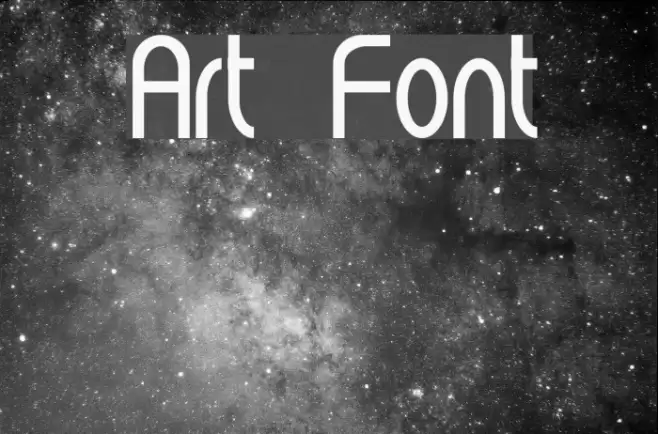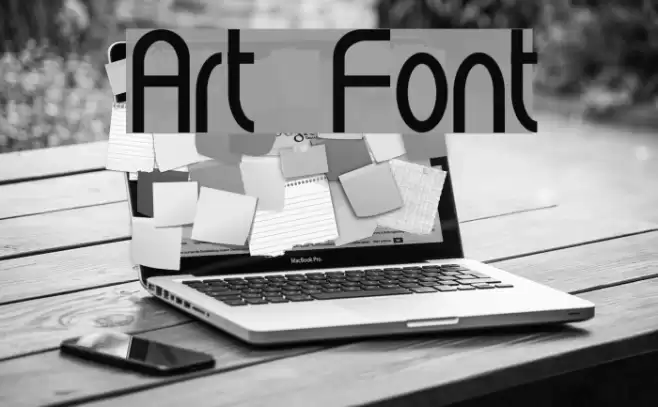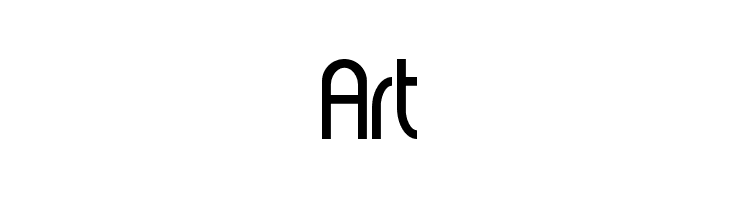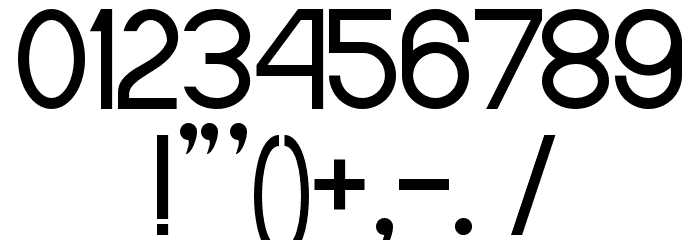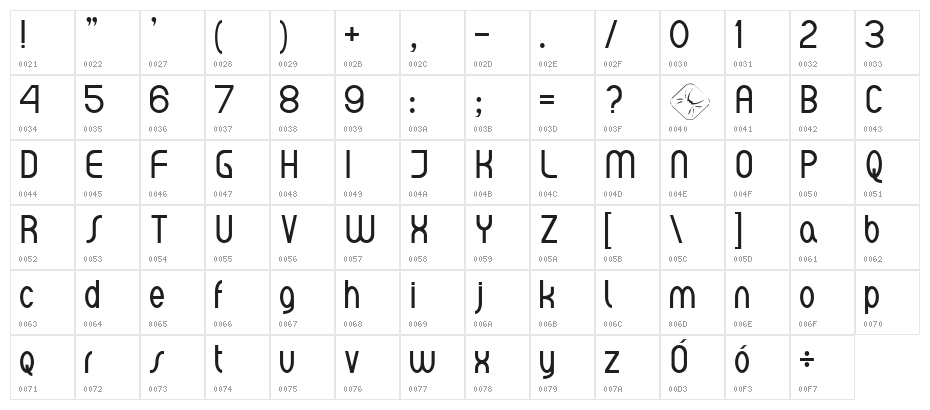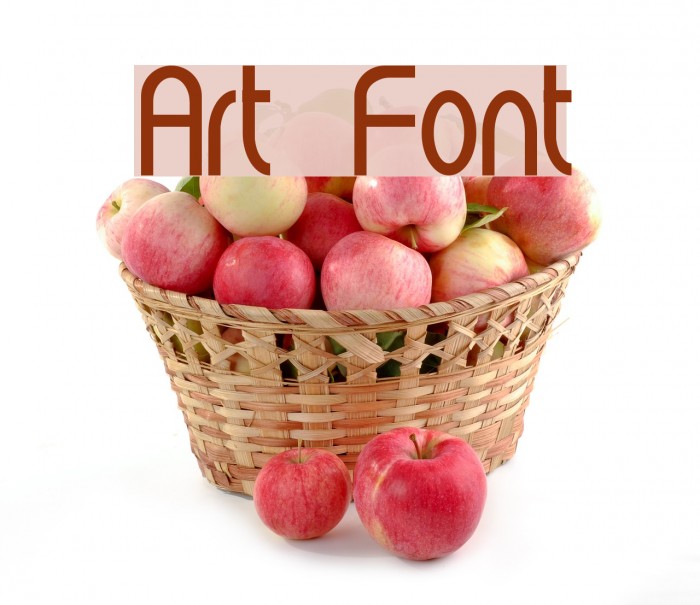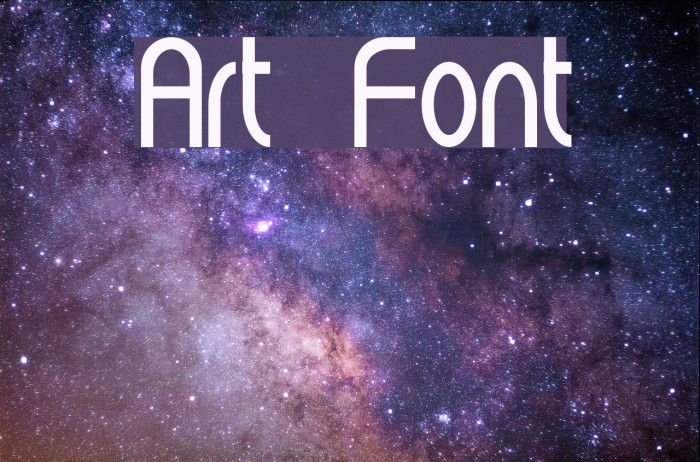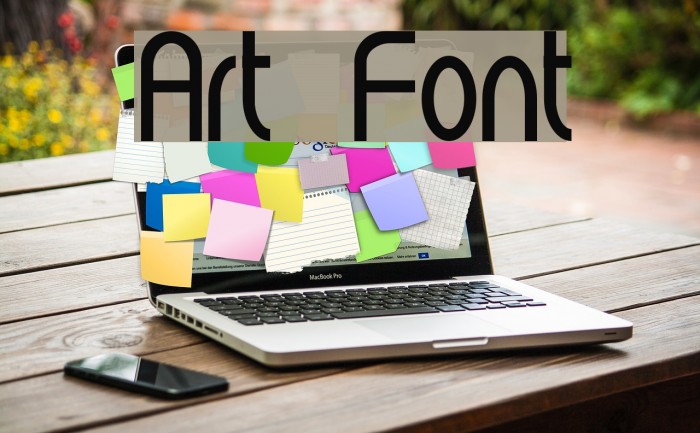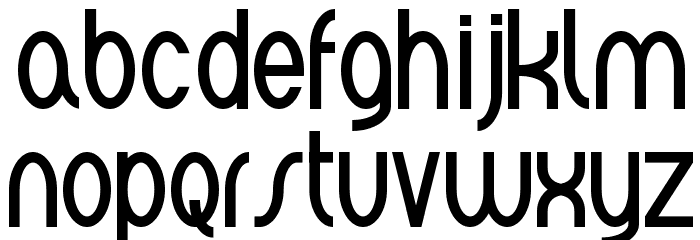
Art Font
Art Description
This font features a modern, geometric sans-serif style with clean, rounded edges and a uniform stroke width. The characters are well-proportioned, offering a harmonious balance between height and width. Its design is minimalistic, emphasizing clarity and readability. The uppercase letters are bold and assertive, while the lowercase letters maintain a consistent flow with slightly rounded terminals. The numerals are distinct and easy to read, making them suitable for various applications. Special characters are designed with the same geometric precision, ensuring a cohesive look across all glyphs.
A modern, geometric sans-serif font with clean, rounded edges and uniform stroke width from Uncategorized fonts.
- Proposed Projects: Ideal for branding, digital interfaces, signage, and editorial design projects.